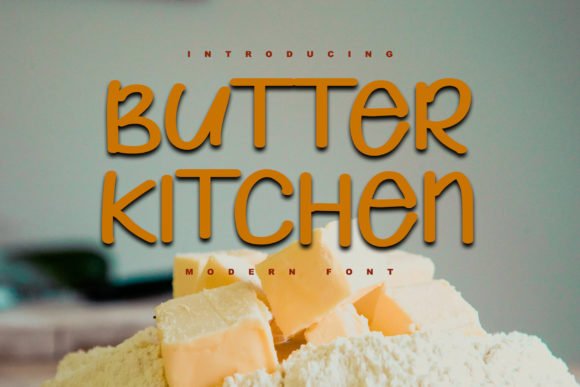
Discover the Perfect Complement for Your Creative Vision
Have you ever stared at a blank canvas, laptop screen, or design paper, feeling stuck and unsure of where to begin? You’ve got a concept in mind, but the right words just won’t come together. This is where the magic of typography comes in – and the Butter Kitchen Font is here to save the day.
This simple yet adaptable display font is designed to bring your unique style to life. With its natural and distinctive flair, the Butter Kitchen Font is the perfect partner for a wide range of designs. Whether you’re working on a branding project, creating a blog post, or crafting a social media campaign, this versatile font is sure to elevate your message and make it truly unforgettable.
Key Features of Butter Kitchen Font
- Font Family: Butter Kitchen Font is a unique, hand-drawn font that features a warm and inviting aesthetic.
- Character Set: Includes a comprehensive set of characters, including uppercase and lowercase letters, numbers, and punctuation marks.
- Unique Characteristics: Features a distinctive, hand-drawn style with subtle imperfections that add to its charm and character.
Butter Kitchen Font Review
First off, I love the playful vibe of Butter Kitchen Font ✨. It’s perfect for food blogs, cooking websites, or any project that needs a touch of warmth and approachability. The font’s soft, rounded edges and gentle curves make it an instant hit with me.
Some of the font’s key strengths include:
- Easy to read, even at smaller font sizes ✨
- Fits well with modern and vintage designs, making it versatile ✨
- Works well in headings and body text, adding visual interest ✨
However, I do have a few reservations ⚠️:
- The font can feel a bit too casual for formal or professional projects ⚠️
- May not be the best choice for projects that require a lot of technical or scientific content ⚠️
Overall, Butter Kitchen Font is a solid choice for projects that need a friendly, approachable feel. While it may not be the best fit for every project, it’s definitely worth considering for the right application.
For optimal results, use the Butter Kitchen Font in conjunction with a clean and simple design aesthetic.
Avoid using the font for large blocks of text, as it’s best suited for headlines and titles.
Experiment with different font sizes and colors to create visual interest and hierarchy in your design.
The Butter Kitchen Font is ideal for:
- Home decor and lifestyle design
- Wedding and event invitations
- Blog and website headers
Alternatives to Butter Kitchen Font for Designers
1. Alex Brush Font
Alex Brush Font is a beautiful, handwritten font that is perfect for creating a warm and inviting atmosphere in your designs. It’s ideal for use in branding, packaging, and advertising materials where a personal touch is required. Compared to Butter Kitchen Font, Alex Brush Font has a more elegant and refined feel, making it suitable for upscale brands and luxury products.
Great Vibes Font is a modern, cursive font that is great for creating a fun and playful atmosphere in your designs. It’s perfect for use in social media graphics, event invitations, and promotional materials where a lively and energetic vibe is required. Compared to Butter Kitchen Font, Great Vibes Font has a more dynamic and expressive feel, making it suitable for young and trendy brands.
3. Ostrich Sans Font
Ostrich Sans Font is a clean and modern sans-serif font that is perfect for creating a professional and minimalist atmosphere in your designs. It’s ideal for use in corporate branding, business cards, and website design where a clean and simple look is required. Compared to Butter Kitchen Font, Ostrich Sans Font has a more modern and sleek feel, making it suitable for tech and finance brands.
Carolyna Pro Font is a elegant and sophisticated serif font that is perfect for creating a classic and refined atmosphere in your designs. It’s ideal for use in luxury branding, high-end packaging, and editorial design where a touch of elegance is required. Compared to Butter Kitchen Font, Carolyna Pro Font has a more sophisticated and refined feel, making it suitable for upscale brands and high-end products.
Q: Can I customize the Butter Kitchen Font for my specific design needs?